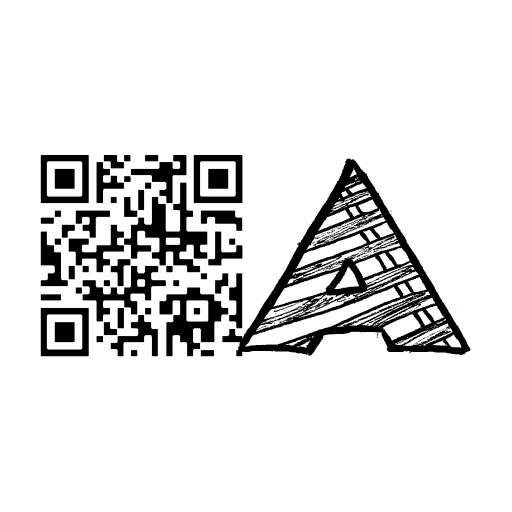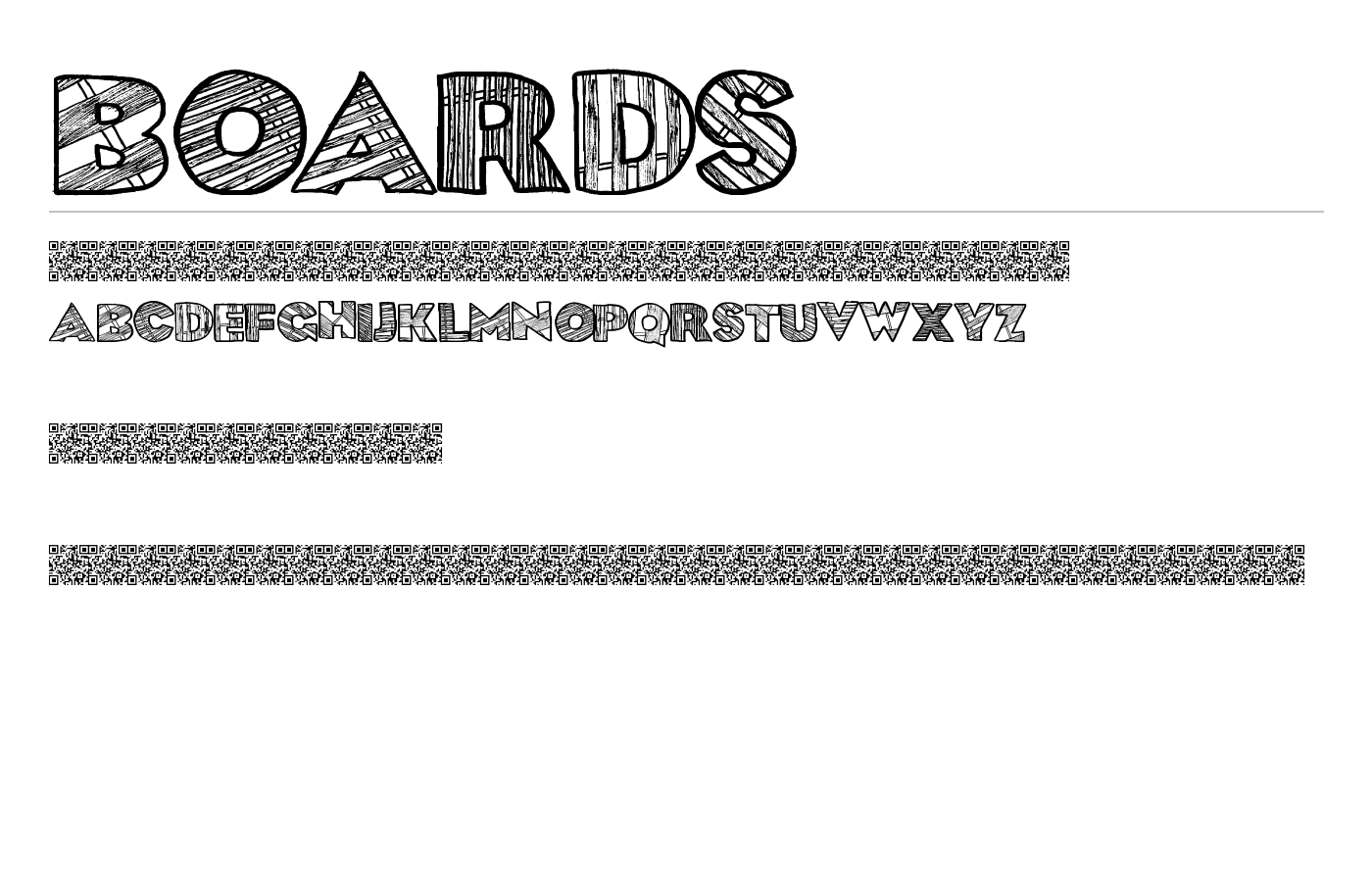
Boards Font is a bold, playful display typeface with a hand-drawn, textured style that mimics the look of wooden planks or boards. Its chunky, all-caps letters feature irregular line patterns and shading that give it a rustic, fun, and approachable personality, perfect for creative headlines, posters, or branding that seeks a natural, crafty vibe. This font works best in casual, artistic, or outdoorsy settings where a unique, eye-catching aesthetic is desired.